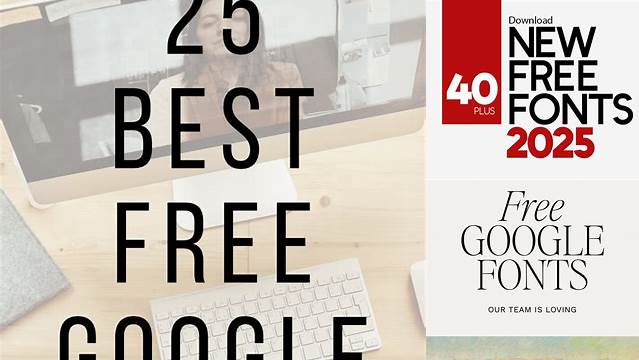
Best Free Google Fonts To Use In 2025
Alright, font fanatics! Let's dive into the exciting world of typography and explore the best free Google Fonts to use in 2025. Choosing the right font is like picking the perfect outfit – it sets the tone and makes a statement. In this article, we'll uncover some hidden gems, revisit timeless classics, and discuss how to pick the perfect fonts for your projects. Whether you're a seasoned designer or just starting your creative journey, this guide is your ultimate resource for finding stunning, free Google Fonts that will elevate your designs in 2025 and beyond. We'll also look at current trends, things to avoid, and tips for keeping your designs fresh. Let's get started!
H2: Top Trending Free Google Fonts for 2025
Hey guys, let's kick things off by exploring the hottest font trends expected to dominate 2025. The landscape of typography is always evolving, and staying ahead of the curve is crucial for designers who want to create visually appealing designs. What are the specific fonts that are predicted to be popular? Well, a significant trend is the increased use of variable fonts. These fonts offer incredible flexibility, allowing designers to adjust weight, width, and other properties within a single font file. This means you can create a range of styles from a single font family, streamlining your workflow and making your designs more dynamic.
Looking at current predictions, several font styles are expected to be at the forefront. Firstly, modern sans-serif fonts will continue to be extremely popular. They are clean, legible, and work well across various platforms and devices. Think of fonts like Poppins, which has been trendy recently and might still be cool in 2025 because it's so versatile. Then there are fonts that are slightly more geometric, offering a contemporary aesthetic that blends well with minimalist design trends. Secondly, serif fonts are making a comeback, particularly those with a contemporary twist. We might see a resurgence of elegant, yet readable serif fonts. These fonts add a touch of sophistication and are excellent for body text, especially in long-form content. Also, we might see some new, bold font families that will quickly become popular. Moreover, some fonts with a vintage or retro vibe are also expected to be trendy in 2025. These are perfect for projects that want to invoke a sense of nostalgia or old-school charm. Choosing the correct font may depend on your audience, the content that you want to deliver, and the aesthetic that you want to create. For all these reasons, it's smart to start your design process by exploring these font options.
H3: Detailed Look at Specific Font Families
Let's take a closer look at some specific font families that are likely to be trending in 2025. Firstly, consider Roboto. Roboto is a sans-serif font that is considered a Google standard. It offers incredible readability, is easy on the eyes, and is adaptable across multiple devices. Furthermore, it works well for both headlines and body text, making it an excellent choice for various design projects. You can pair it with a bold version for titles and a regular version for the content. Roboto also comes in various weights and styles, allowing for flexibility in your designs. Another great option is Open Sans. This is another classic sans-serif font that is well-known for its neutrality and versatility. It is extremely readable at various sizes, making it perfect for both web and print. Open Sans's clean lines and open forms make it suitable for diverse projects, from websites to documents. Open Sans is considered a safe choice and is sure to continue to have a place in the design landscape in 2025.
Next, let's explore some serif fonts. Consider Playfair Display. This font is specifically designed for headlines and titles. Playfair Display is known for its high contrast and elegant appearance. It will certainly add a touch of sophistication to your designs. It might pair nicely with a clean sans-serif font for body text. It is one of the most popular fonts for brands looking for a touch of elegance. The versatility of Playfair Display makes it a strong choice for many different creative projects.
H2: Best Free Google Fonts for Website Design
When it comes to website design, choosing the right fonts is key for a user-friendly and visually appealing experience. Good typography can improve readability, enhance branding, and guide users through your content. In 2025, website design trends will continue to prioritize clarity, responsiveness, and visual appeal, which will impact the font choices. So, what are the best free Google Fonts for website design?
One of the top recommendations is Lato. Lato is a well-balanced sans-serif font that offers excellent readability. It's clean, modern, and very versatile. Its friendly appearance works well for both headlines and body text. Another fantastic choice is Montserrat. This sans-serif font features a geometric design with a modern feel. It is extremely popular for its versatility and readability, and it's perfect for both headlines and body text. Its extensive range of weights and styles makes it suitable for various design applications. Its clean lines and open forms provide a contemporary aesthetic.
H3: Pairing Fonts for Web Design Harmony
Choosing fonts is one thing, but pairing them effectively is another art. Good font pairings can enhance the visual hierarchy of a website and improve the user experience. It is smart to consider both the font styles and the contrast. When selecting fonts for your website, it's essential to create a good balance between your headings and body text. A popular approach is to use a sans-serif font for headings and a serif font for body text, or vice versa. This contrast helps to distinguish different types of content and makes it easier for the user to scan the information. You can also match fonts from the same family but with different weights and styles. Ensure that your selected fonts complement each other in terms of style, weight, and overall visual appearance. You can find good font pairings on the Google Fonts website.
H2: Free Google Fonts for Branding and Logo Design
Branding and logo design are all about making a lasting impression. So, selecting the right fonts is crucial for conveying your brand's personality and values. Your chosen fonts should reflect the essence of your brand and help you establish a strong visual identity. So, what are the best free Google Fonts for branding and logo design?
A great option is Raleway. This elegant sans-serif font is known for its clean lines and modern appearance. It's highly versatile and works well for branding across various platforms, from logos to marketing materials. Another excellent choice is Oswald. Oswald is a condensed sans-serif font, that is bold and impactful. It is an excellent choice for brands that need to make a strong statement, and it’s especially effective for headlines and shorter pieces of text. It is also known for its readability, even at a small size. Moreover, it is extremely versatile and can be used in many different contexts.